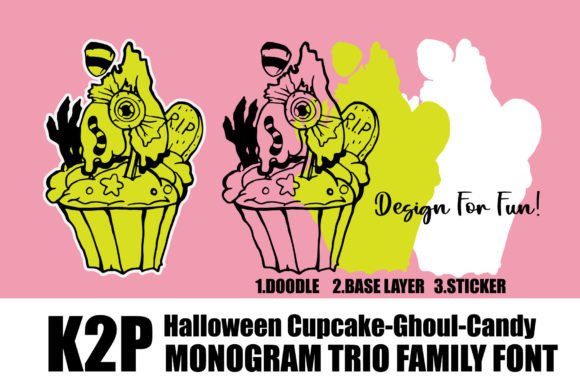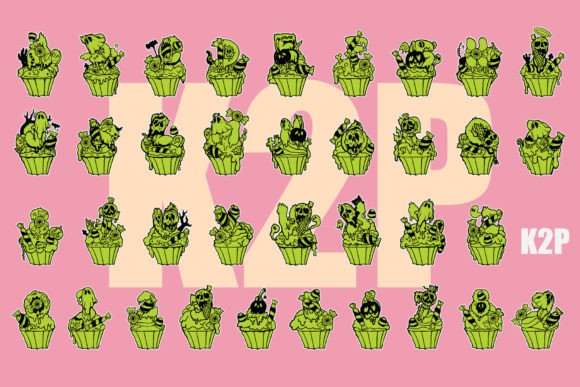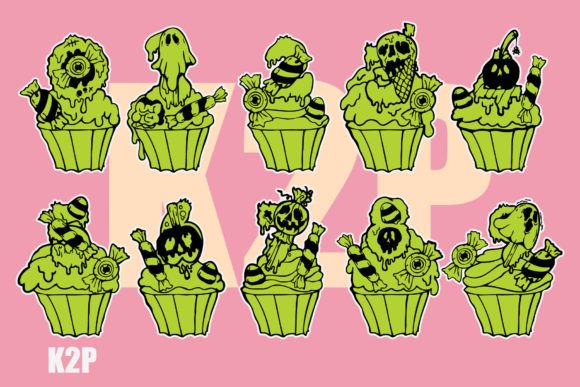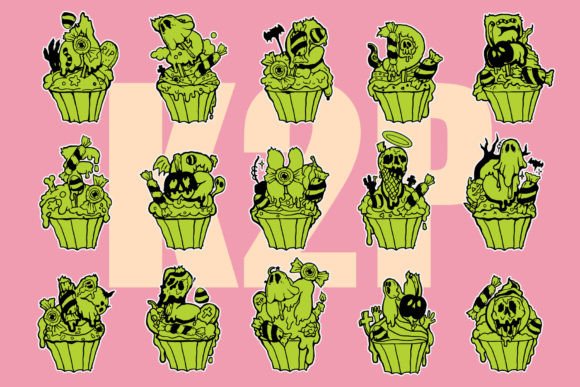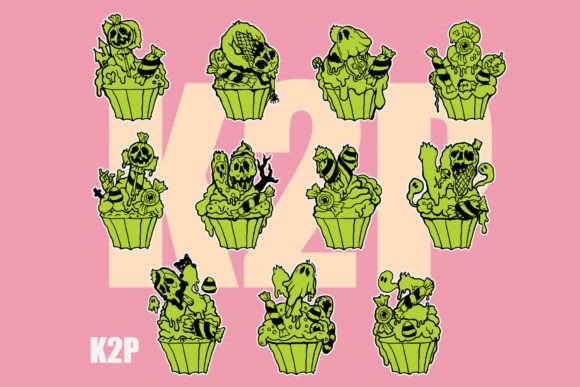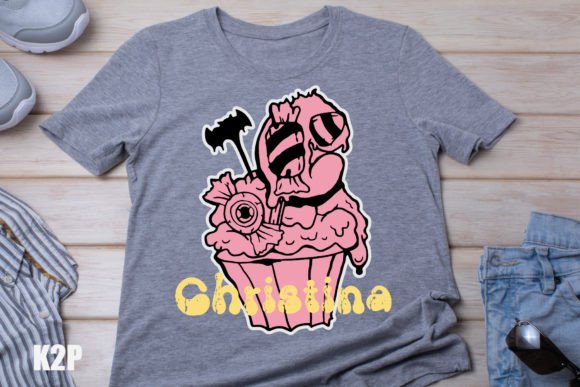
Introduction to Cupcake Ghoul Candy Font
As the sun sets on a crisp autumn evening, and the moon casts an eerie glow over the landscape, creative minds start to stir. You’ve got a Halloween party to plan, a spooky-themed design to create, or a crafty project to bring to life. The thrill of bringing your ideas to reality is exhilarating, but the perfect design resource can make all the difference. That’s where the Cupcake Ghoul Candy Font comes in – a free download that will add a touch of whimsy and charm to your high-quality creations.
This delightful font is the perfect companion for any creative project, allowing you to unleash your imagination and bring your spooky visions to life. With its transparent background and PUA encoded glyphs, you’ll have access to a world of design possibilities. Whether you’re a seasoned designer or a crafty enthusiast, the Cupcake Ghoul Candy Font is a valuable addition to your design resource arsenal.
Key Features of Cupcake Ghoul Candy Font
- Cupcake Ghoul Candy Font is a free download, ideal for creative projects and design enthusiasts.
- This unique font features a high-quality design with a transparent background, perfect for overlaying on images or videos.
- This font is a great resource for designers looking to add a spooky or playful touch to their creative projects.
- The Cupcake Ghoul Candy Font is a unique and creative design element, perfect for adding a touch of whimsy to any project.
Honest Review: Cupcake Ghoul Candy Font
As a designer, I’m always on the lookout for high-quality design resources that can elevate my creative projects. The Cupcake Ghoul Candy Font is one such resource that caught my attention.
- ✨ The font is super cute and perfect for Halloween-themed projects or any project that requires a playful touch.
- ✨ The font has a transparent background, which makes it easy to layer over other design elements.
- ⚠️ The font is a bit limited in its character set, which may not be suitable for longer text-based projects.
- ⚠️ Some characters may not display correctly on certain systems or in certain design applications.
Overall, I think the Cupcake Ghoul Candy Font is a great addition to any designer’s toolkit. It’s perfect for short text-based projects or any project that requires a playful, whimsical touch. Just be aware of its limitations and use it accordingly.
The Cupcake Ghoul Candy Font is perfect for a variety of creative projects, including:
- Birthday invitations and party decorations
- Food and drink branding
- Children’s book illustrations and design